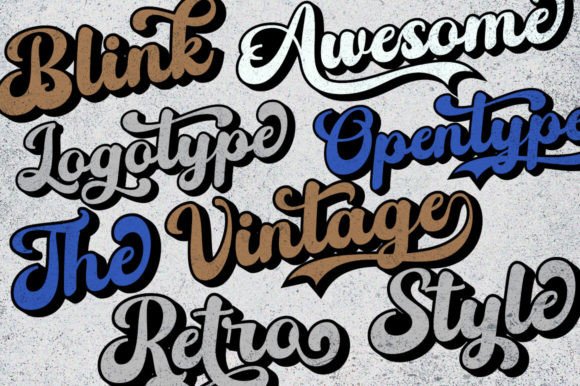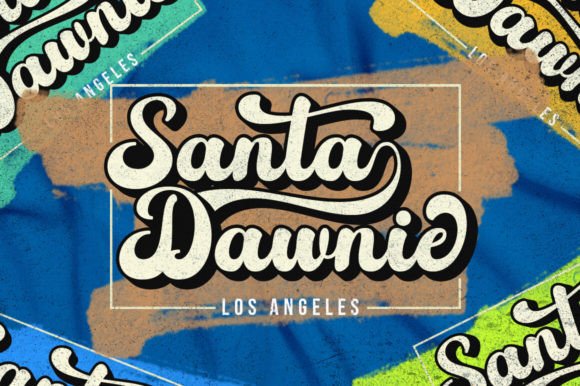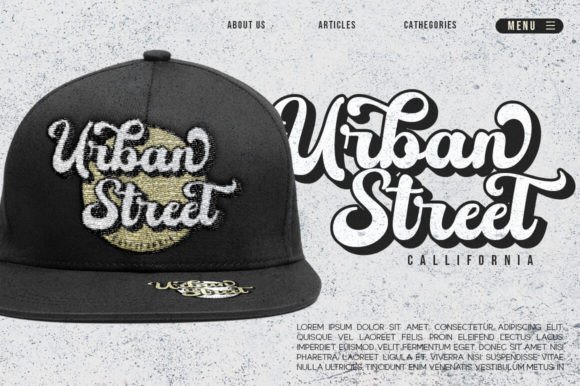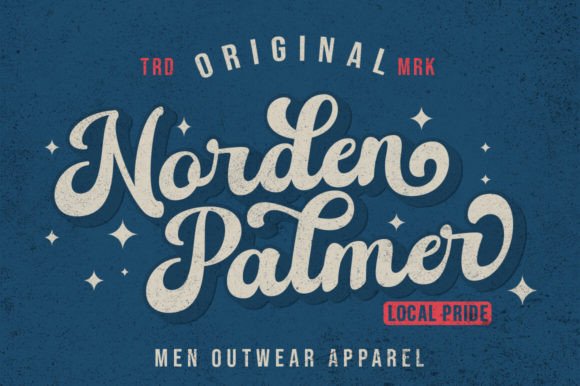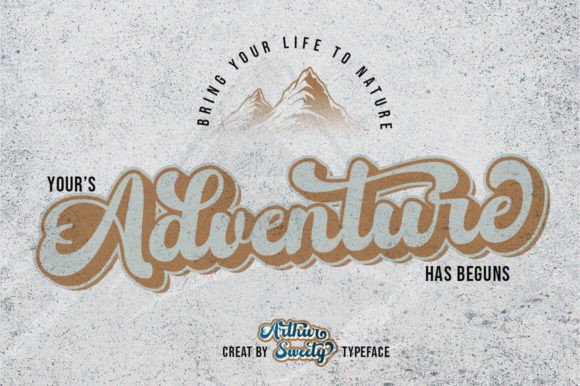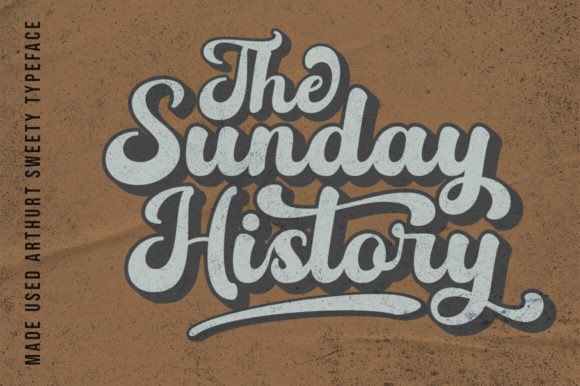
Have you ever found yourself stuck in a design rut, searching for the perfect font to elevate your creative work? I know I have. Remember that moment when you finally discovered the font that brought your vision to life? For me, that moment came when I stumbled upon the Arthur Sweety Font. This modern, classy script font is a game-changer for designers looking to add a touch of elegance to their work.
The Arthur Sweety Font is designed to help you create hand-lettered masterpieces in an instant. With its bold and smooth script style, you can combine and incorporate all fonts into your creative projects with ease. Whether you’re working on logotype, branding, packaging, or merchandise, this font is a valuable asset to have in your design toolkit.
Arthur Sweety Font Key Features
- Font Family: Arthur Sweety
- Unique Characteristics: The Arthur Sweety font features a playful, handwritten style with a mix of cursive and script elements, making it suitable for creative and artistic projects.
Arthur Sweety Font Review
First off, I have to say that the Arthur Sweety Font has some really great qualities that make it a standout choice for designers looking for a unique, playful font. ✨ Its rounded edges and cursive feel give it a friendly, approachable vibe that’s perfect for branding and marketing materials. The font is also highly customizable, with a range of weights and styles to choose from, which makes it easy to tailor to different design needs.
One of the things that really works well about the Arthur Sweety Font is its versatility. ✨ It’s just as effective for digital use as it is for print, and its legibility makes it easy to read even at small sizes. The font also works well in a variety of contexts, from kids’ products to food and beverage branding.
- ⚠️ Limited support for certain languages, which may make it less suitable for global brands.
- ⚠️ Some users have reported issues with font rendering at very small sizes.
Overall, I think the Arthur Sweety Font is a solid choice for designers looking for a fun, approachable font. While it’s not without its limitations, its versatility and customization options make it a great addition to any designer’s toolkit.
Alternatives to Arthur Sweety Font for Designers
Great Vibes Font is a modern, elegant script font that is perfect for creating a whimsical and romantic atmosphere. It is ideal for use in wedding invitations, greeting cards, and other special occasion materials. When to use: For designs that require a touch of elegance and sophistication.
Great Vibes Font is similar to Arthur Sweety Font in its elegant and refined feel, but it has a more modern and sophisticated look. It is also more versatile and can be used in a variety of contexts, from formal to casual.
Carolyna Pro Font is a stylish and sophisticated script font that is perfect for creating a luxurious and elegant atmosphere. It is ideal for use in high-end branding, advertising, and editorial materials. When to use: For designs that require a touch of luxury and sophistication.
Carolyna Pro Font is similar to Arthur Sweety Font in its elegant and refined feel, but it has a more dramatic and luxurious look. It is also more versatile and can be used in a variety of contexts, from formal to casual.